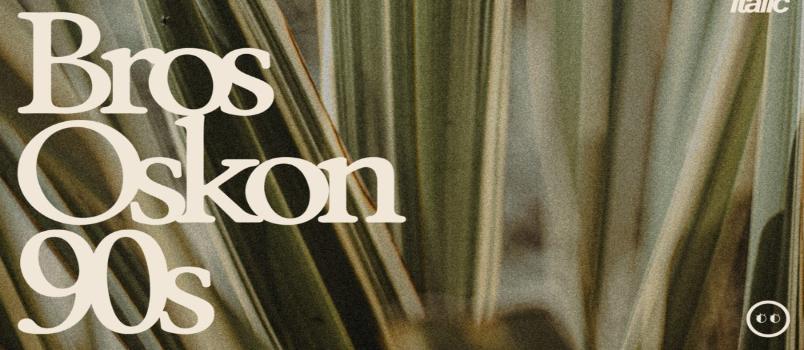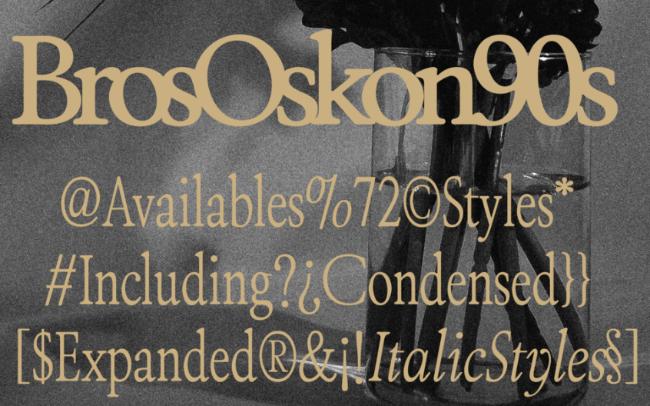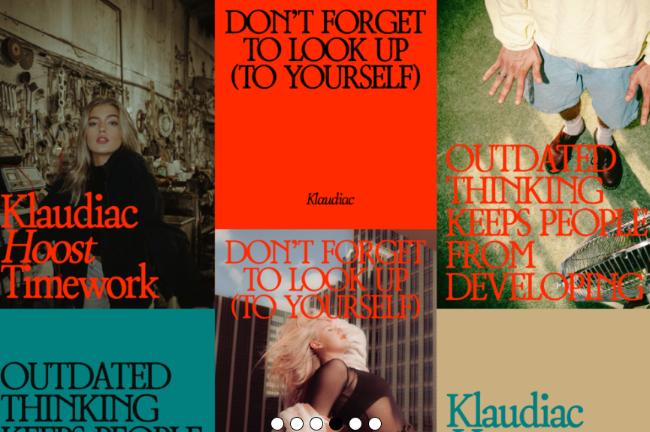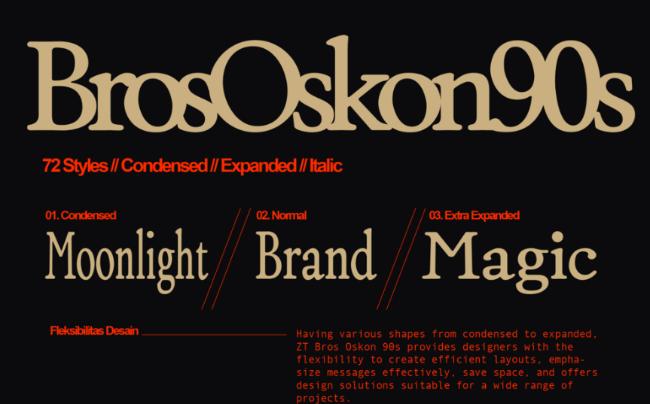
Created by the innovative team at ZT Bros, the Oskon 90s font isn’t just another retro revival – it’s a love letter to one of typography’s most adventurous periods. This isn’t your typical nostalgic throwback that simply mimics old forms; instead, it’s a carefully crafted homage that understands what made 90s typography so compelling in the first place. The designers have managed to distill the essence of that decade’s visual language into something that feels both authentically vintage and refreshingly contemporary.
The Oskon 90s font captures this rebellious spirit through its distinctive character design. Each letterform seems to pulse with the kinetic energy that defined the decade, incorporating subtle irregularities and stylistic flourishes that speak to the hand-crafted digital aesthetic of the era. It’s neither too polished nor too rough – instead, it strikes that perfect balance between accessibility and edge that made 90s design so appealing to such a broad audience.